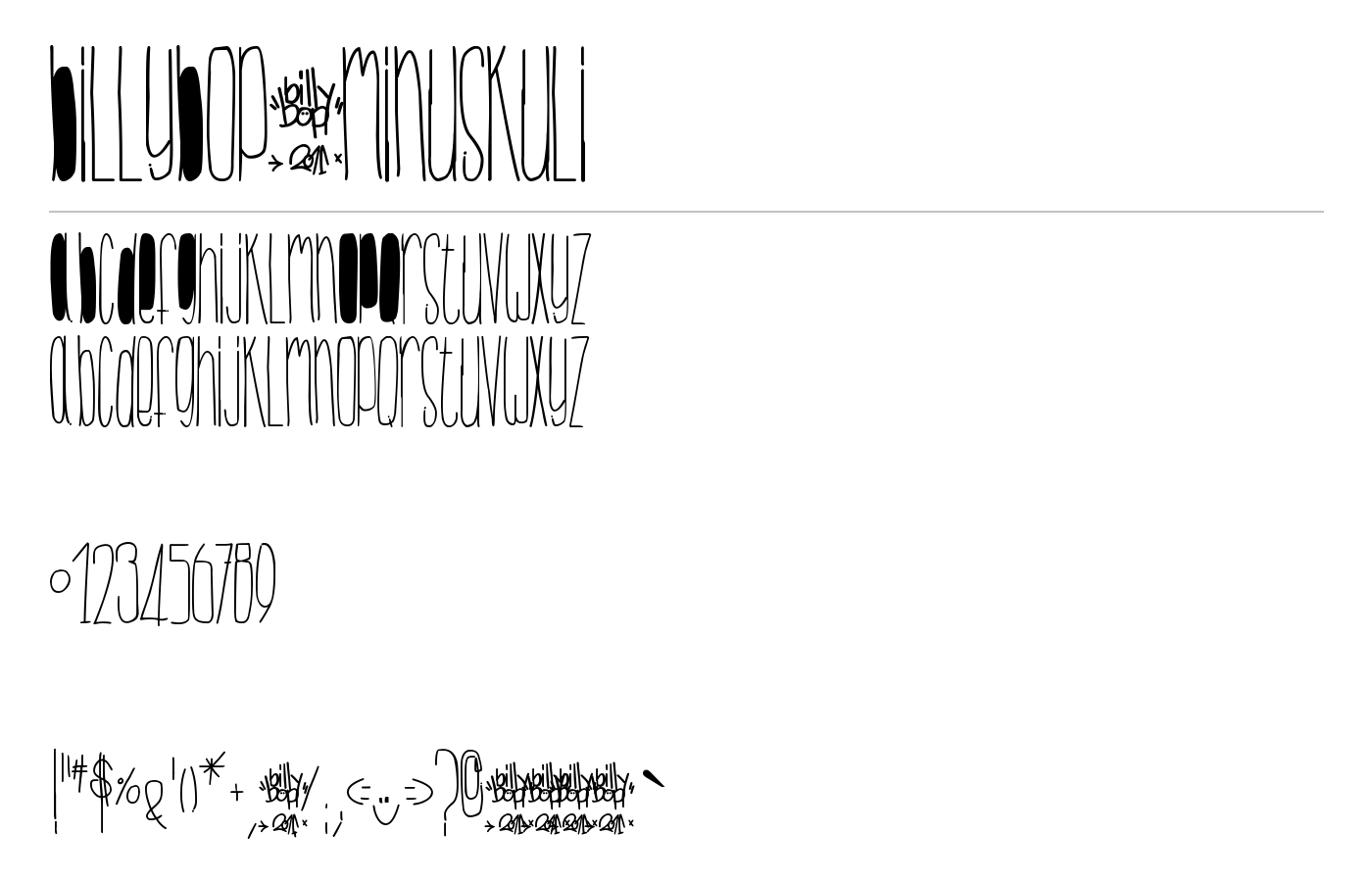
BillyBop_MinusKuli is a playful, narrow, and highly stylized sans serif font featuring tall, thin letterforms with occasional bold, rounded elements that create a whimsical contrast. Its quirky, hand-drawn feel makes it ideal for creative, informal projects like children's books, posters, and unique branding that seeks a fun and distinctive personality. This font's distinctive character and irregular shapes add charm but work best in display settings rather than extended text.
BillyBop_MinusKuli Font